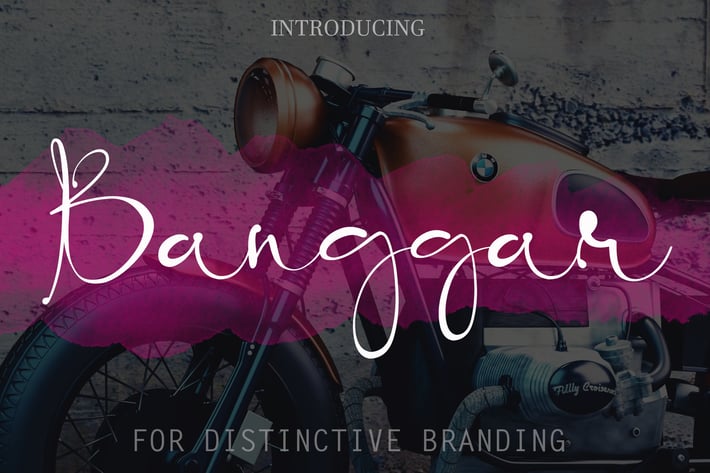
Banggar - Signature Font
Banggar is a stylish signature font that is inspired by modern photography.
Itβs easy to use, to create a stunning watermark for your photos, invitations, branding.
It also works great as a business signature or on other branding materials.
Stylish handwritten style
Special Ligatures